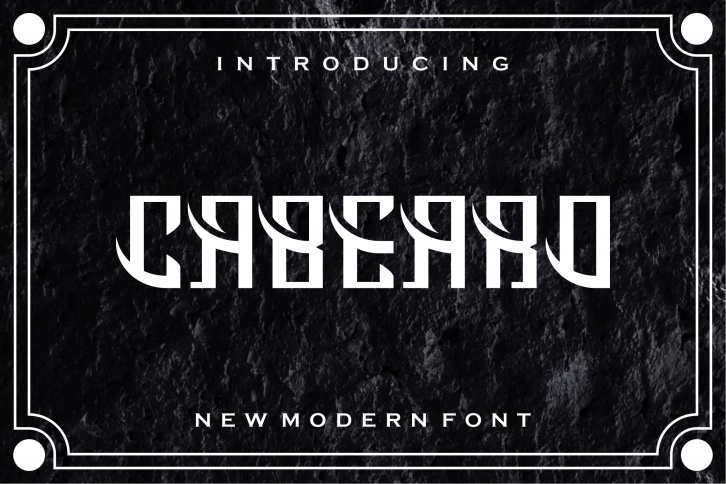
**Cabearo font** – Handwriting Script Font is a Cute Handwriting typeface, perfectly suitable for creating quotes, Wedding Invitations, lifestyle designs such as logos, title, magazine, and more.
* Uppercase